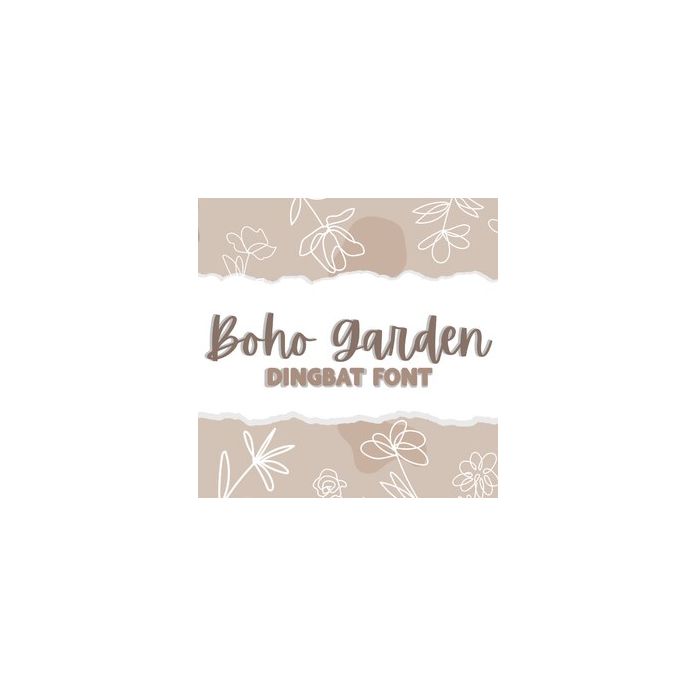
Step into the enchanting world of 'Boho Garden,' a versatile dingbat font that captures the essence of boho chic with its 13 intricate boho floral stems and 13 organic shapes designed for layering. This font is a delightful fusion of nature-inspired artistry and bohemian charm.
With 'Boho Garden' in your creative toolkit, you have endless possibilities to craft unique and captivating designs. Whether you're a graphic designer, a crafting enthusiast, or a small business owner, these boho floral stems and organic shapes are your key to adding a touch of whimsical beauty to your projects.
Embrace the free-spirited boho aesthetic with 'Boho Garden.' Use the 13 floral stems to infuse your designs with the beauty of boho blossoms. Then, experiment with the 13 organic shapes to layer and create stunning compositions that reflect your artistic vision. The result is a harmonious blend of nature and creativity that will captivate your audience.
Elevate your creative journey with 'Boho Garden' and let the enchanting world of boho florals and organic shapes inspire your imagination. Embrace the freedom of artistic expression and watch your designs bloom with this versatile dingbat font.